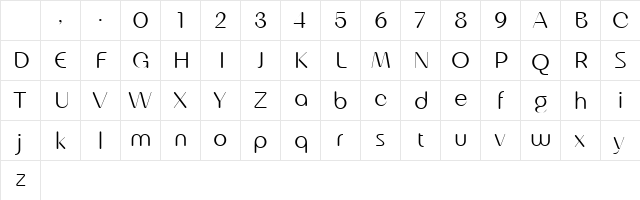
Complete Nearo Rounded Light Regular glyph index. Displaying only characters natively supported by Nearo Rounded Light Regular font.
Nearo Rounded Light softens its letterforms with rounded terminals, giving it an approachable, friendly quality that works well in consumer-facing and digital contexts. Its slender proportions lend an understated elegance to any composition.
Font Pairing: Pairs well with a rounded or humanist sans for body copy, maintaining the friendly tone without relying on Nearo Rounded Light to carry extended reading.
Pro Tip: Use Nearo Rounded Light for UI elements, app interfaces, and anywhere a friendly, approachable tone needs to be maintained without sacrificing clarity.